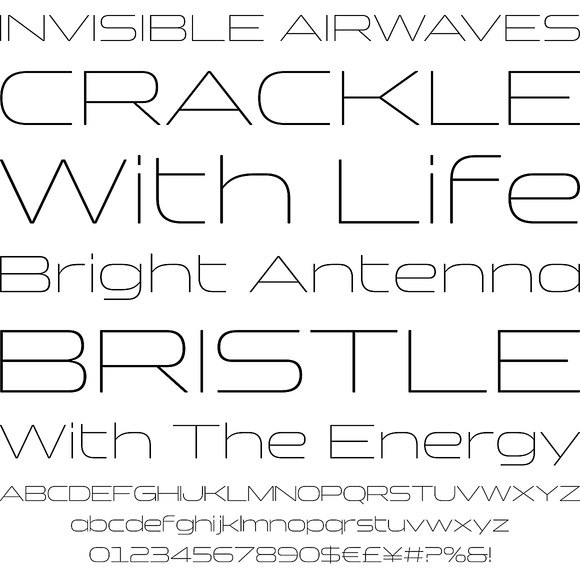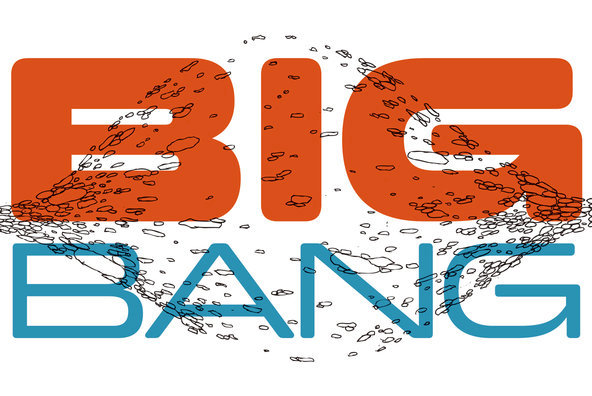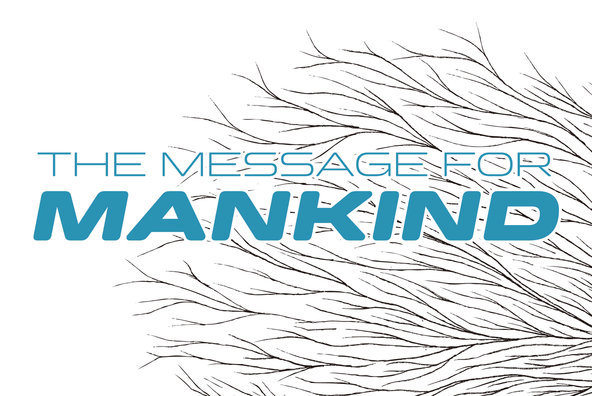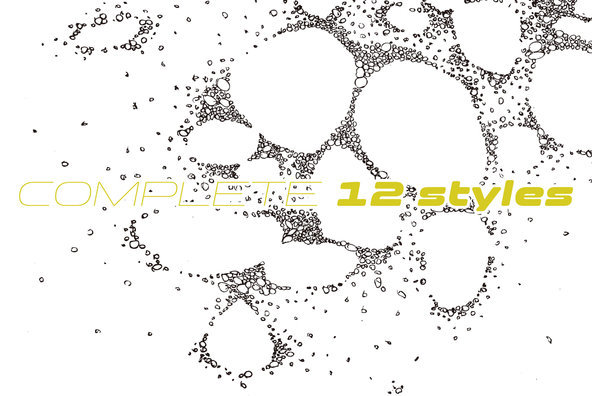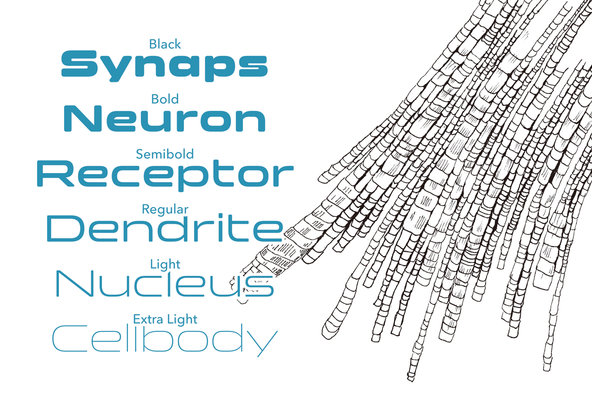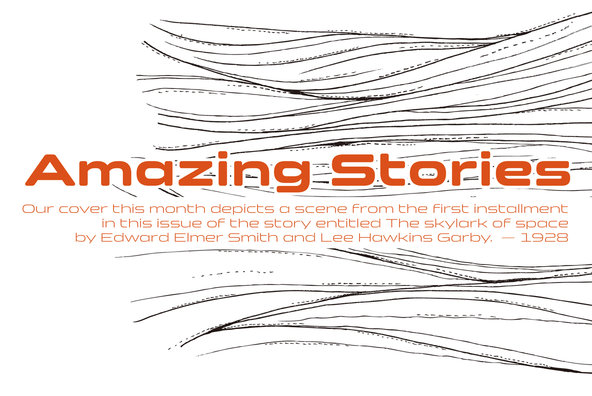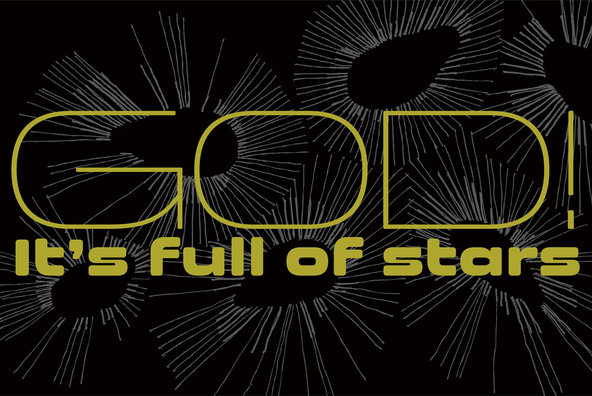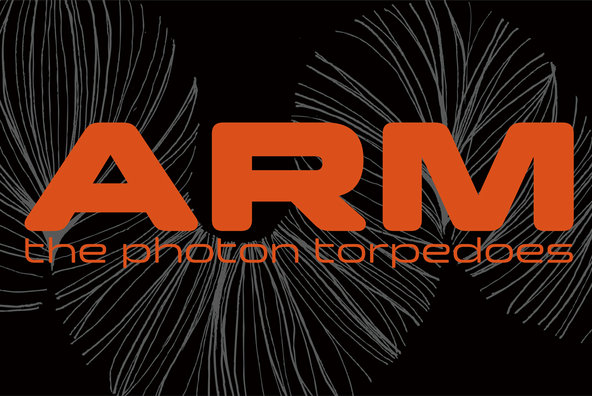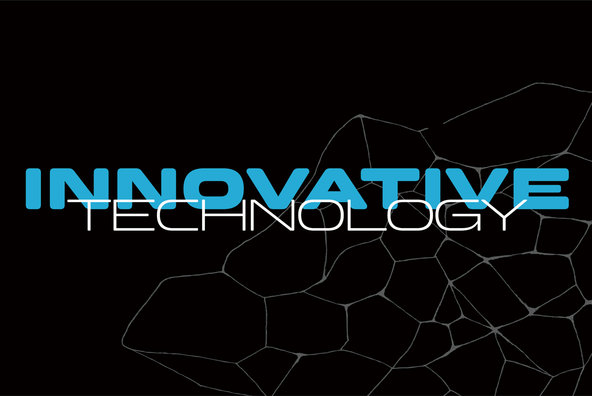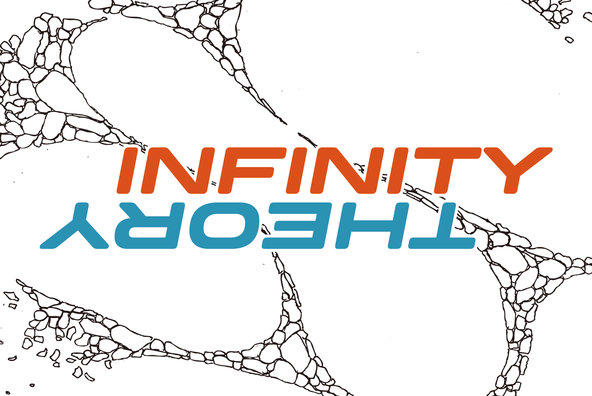
Inspired by and tribute to arcade game logos in 80s and 90s. Clonoid can give futuristic, sci-fi and mechanical impression by its geometric framework but its rounded bowls and semi-rounded edges can make natural and soft impression too.
Inspired by and tribute to arcade game logos in 80s and 90s. Clonoid can give futuristic, sci-fi and mechanical impression by its geometric framework but its rounded bowls and semi-rounded edges can make natural and soft impression too. And its orthodox letterform make it possible to use this font for all uses.
Clonoid family consists of 12 styles, 6 weights (ExtraLight, Light, Regular, SemiBold, Bold and Black) & italics and it’s available in OpenType format.